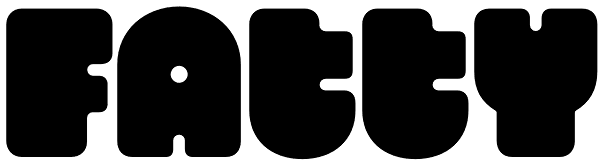
Fatty
Fatty is based on the lettering in a series of silkscreened posters by my friend Chris May. Upon transforming it into a full-fledged digital font, I developed alternate letterforms for the lowercase. The bloated forms maintain a playfully...
Fatty
Fatty Solid